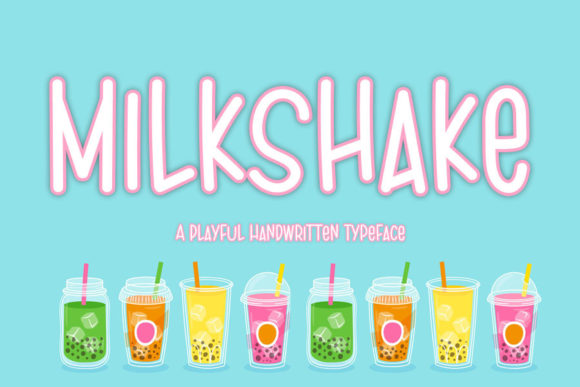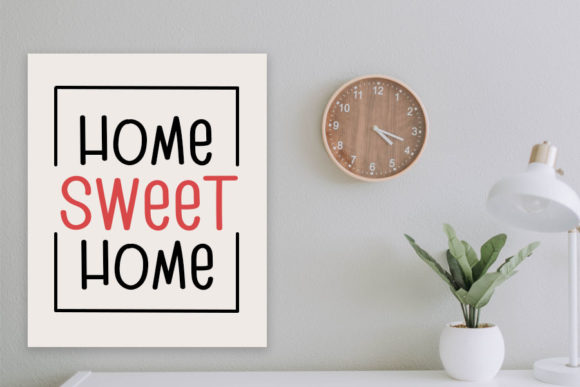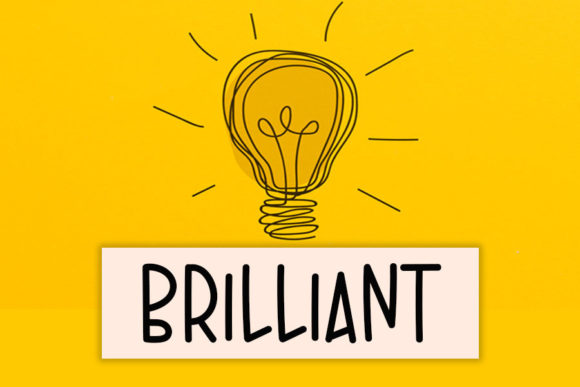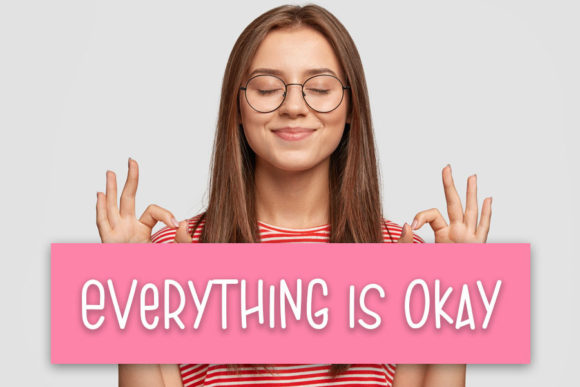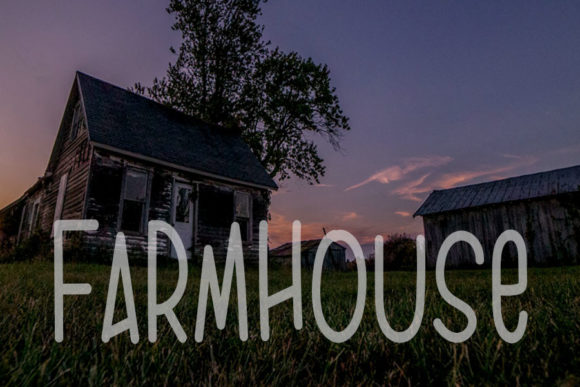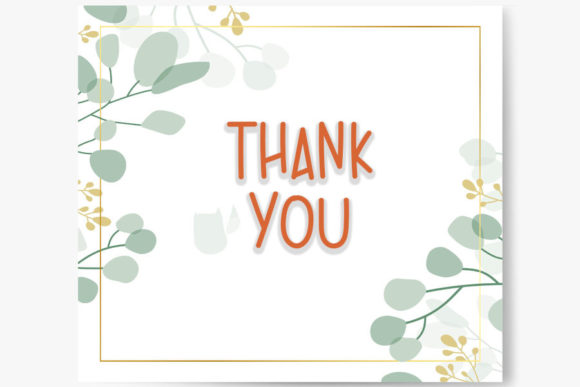
Milkshake Font
Milkshake is a cute and simple lettered handwritten font that can be used for all chalkboard quotes or teaching material! Its authentic look will add a personal and realistic feel to your designs.